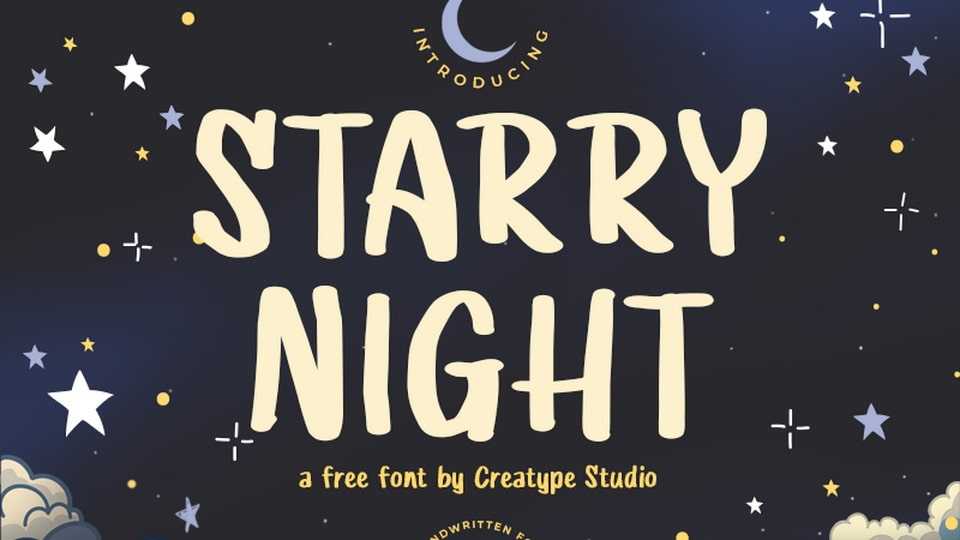
Download Starry Night font, a simple and natural hand-drawn typeface that captures the charm of casual, everyday handwriting with its clean yet imperfect strokes.